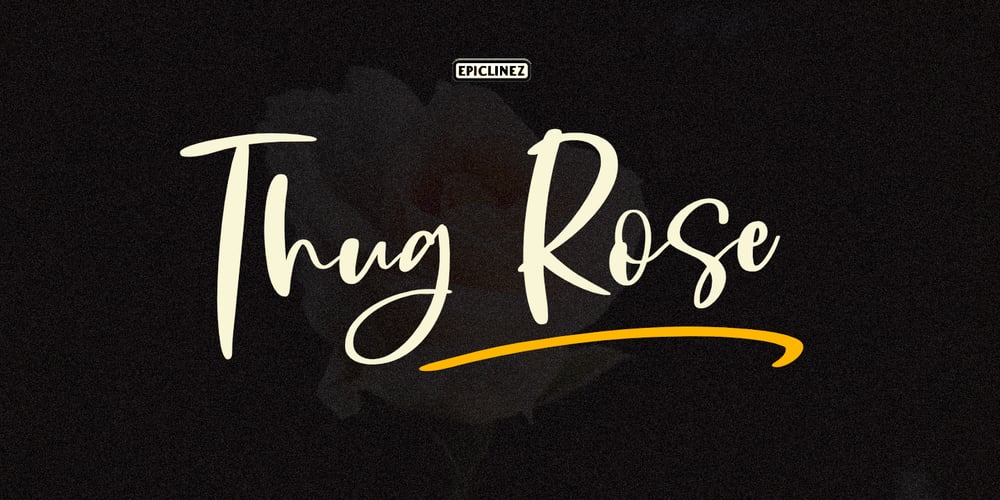
Thug Rose Font Family was designed by Aldy Sidik and published by Epiclinez. Thug Rose contains 1 styles and family package options. Thug Rose is a bouncy hand-lettered script font. This smooth hand-lettered script font is suitable for logos, headlines, branding, etc.